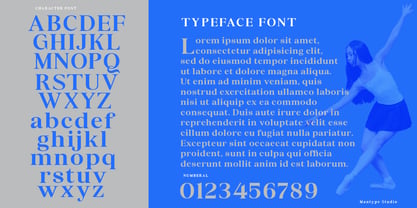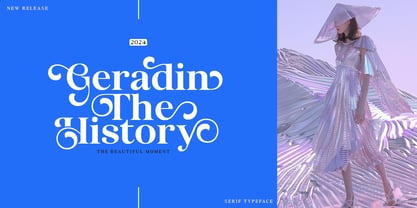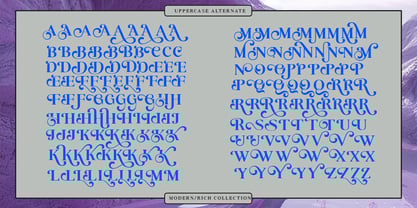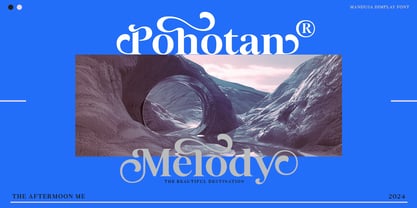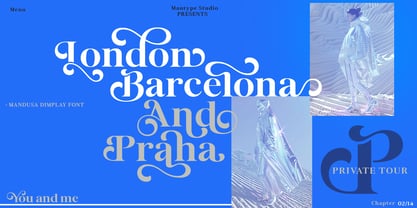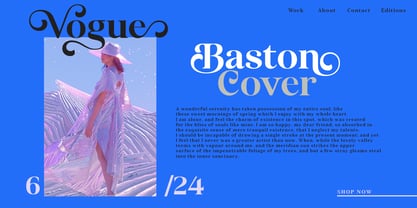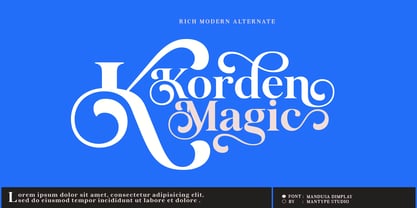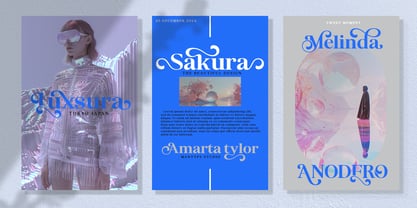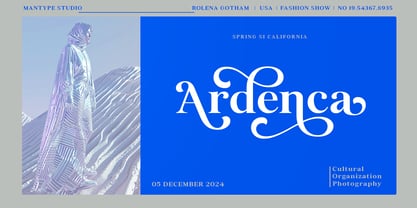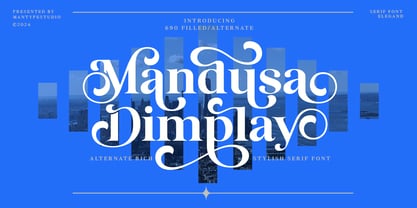
Mandusa dimplay
by Mantype Studio
The Mandusa dimplay Font Family was designed by Sulai Man and published by Mantype Studio. Mandusa dimplay contains 1 styles.
Mandusa dimplay is a modern serif typeface that offers a fashionable touch. Not only does it look sophisticated but also charming. What makes it attractive is its smooth curves, presenting an elegant style. Its classy volume is also one of its characteristics and attractions. With the influence of calligraphy, this font gives a contemporary impression. So, it is suitable for various designs such as beauty designs, elegant crafts, layout designs, advertising branding, design templates, etc.